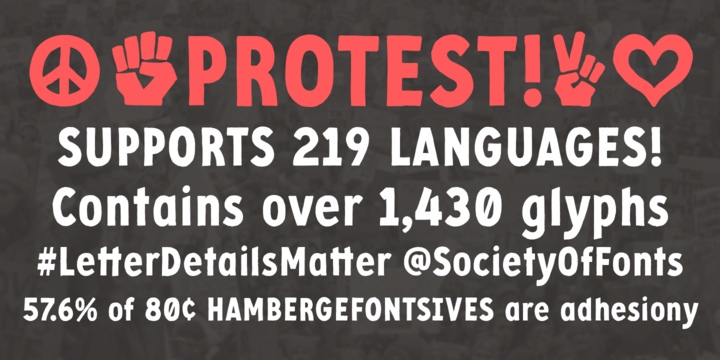
Protest Font
This bold statement typeface is perfect for activist campaign materials, social justice branding, street art projects, political poster designs, awareness campaign graphics, rebellious fashion labels, counter-culture marketing, and impactful advocacy messaging. Protest Font delivers powerful visual rebellion in applications where strong social statements and revolutionary messaging are essential for mobilizing audiences and creating meaningful social change through typography.
What makes Protest Font so exciting is its uncompromising ability to convey urgency and social passion through bold letterforms. The font features assertive, high-impact characters with rebellious design elements that command immediate attention and convey determination. Each glyph has been strategically crafted to ensure maximum visibility in protest environments while maintaining excellent readability across various activist applications. The typeface's revolutionary spirit creates instant emotional response and calls viewers to action, making it perfect for organizations and movements that need to communicate urgent social messages and inspire collective action.
The Protest Font includes powerful style variations: Regular, Bold, Stencil, and Distressed versions. This activist collection provides designers with dynamic tools to create compelling layouts and establish forceful typographic statements that capture the essence of social resistance. Each style maintains the font's core rebellious character while offering different impact levels for various protest applications and revolutionary design contexts.
Whether you're developing social movement branding, creating awareness campaign materials, or designing activist marketing strategies, Protest Font Free Download delivers the revolutionary aesthetic that empowers social change. Its commanding presence makes it particularly suitable for non-profit organizations, activist groups, social justice campaigns, and progressive businesses. The font's powerful nature ensures maximum impact in both street-level applications and digital activism platforms, while its bold design adapts perfectly to various protest formats and social media activism.
This revolutionary typeface represents the ultimate choice for designers who understand the critical role of powerful typography in effective social activism and meaningful community mobilization efforts.